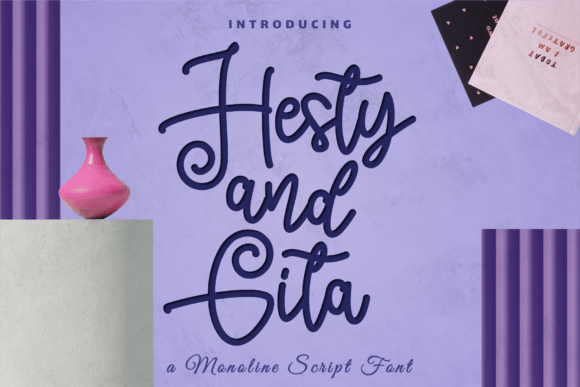
Introducing Hesty and Gita, the enchanting script font designed to add a touch of elegance and charm to your creative projects. With its delicate curves and flowing lines, this font exudes a sense of nostalgia and sophistication that will elevate any design. Discover the boundless possibilities that await you with Hesty and Gita, a versatile font perfect for capturing the beauty of tattoos, wedding invitations, and personalized gifts.
Immerse yourself in the world of Hesty and Gita, where every character dances with grace and fluidity. This font's intricate details and subtle flourishes will make your designs stand out from the crowd. Whether you're creating logos, branding materials, or social media posts, Hesty and Gita will add a layer of refinement and sophistication that will leave a lasting impression.
Step into the realm of Hesty and Gita, where imagination knows no bounds. This font's versatility knows no limits, allowing you to explore a myriad of creative possibilities. Breathe life into your custom-made jewelry, wall art, and home decor with Hesty and Gita's timeless appeal. Unleash your creativity and let this font guide you on a journey of artistic expression.
Hesty and Gita is more than just a font; it's an invitation to embark on a creative adventure. Its unique style and captivating presence will inspire you to create designs that resonate with your audience. Embrace the beauty of Hesty and Gita and watch as your projects transform into captivating works of art.